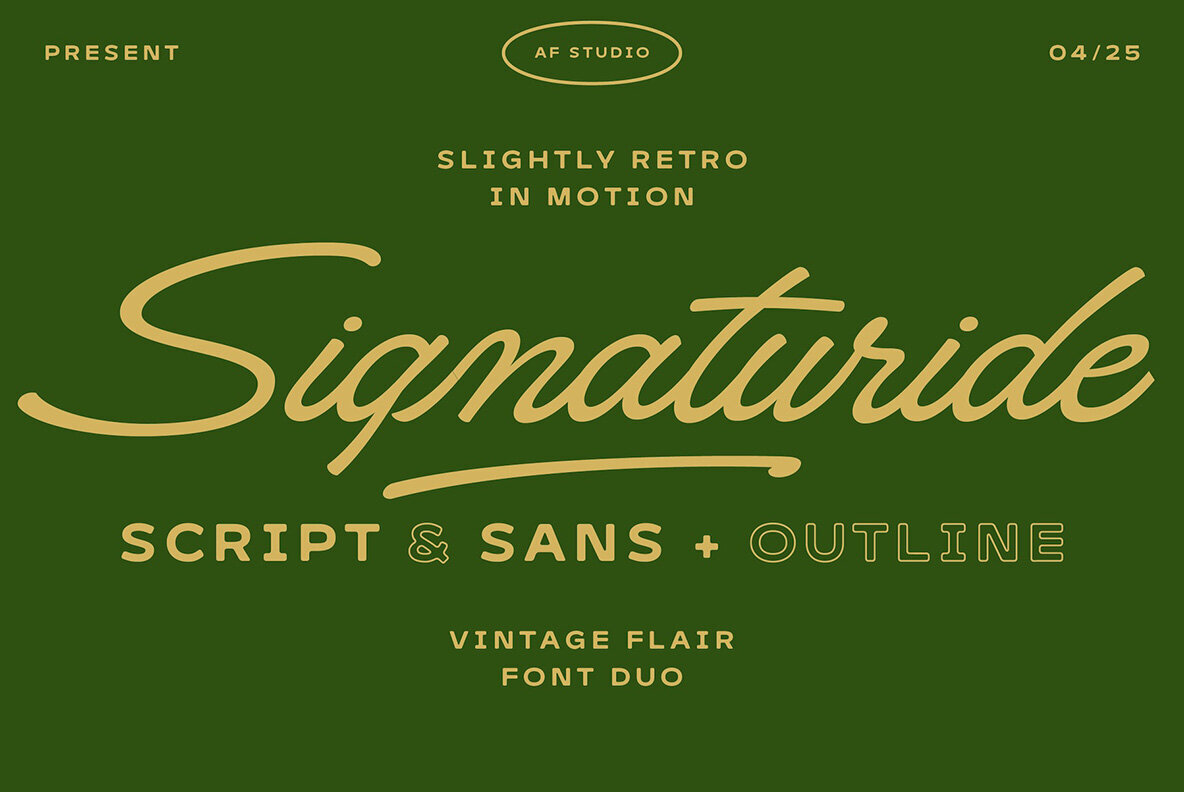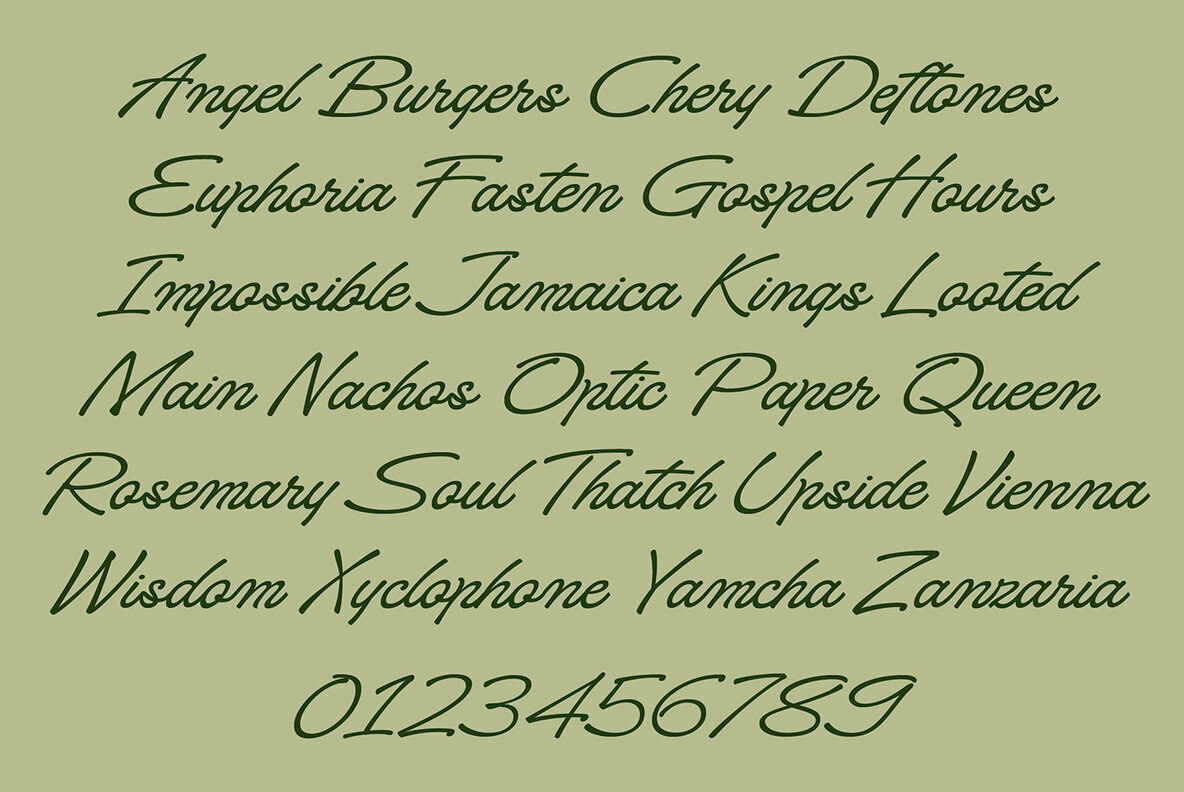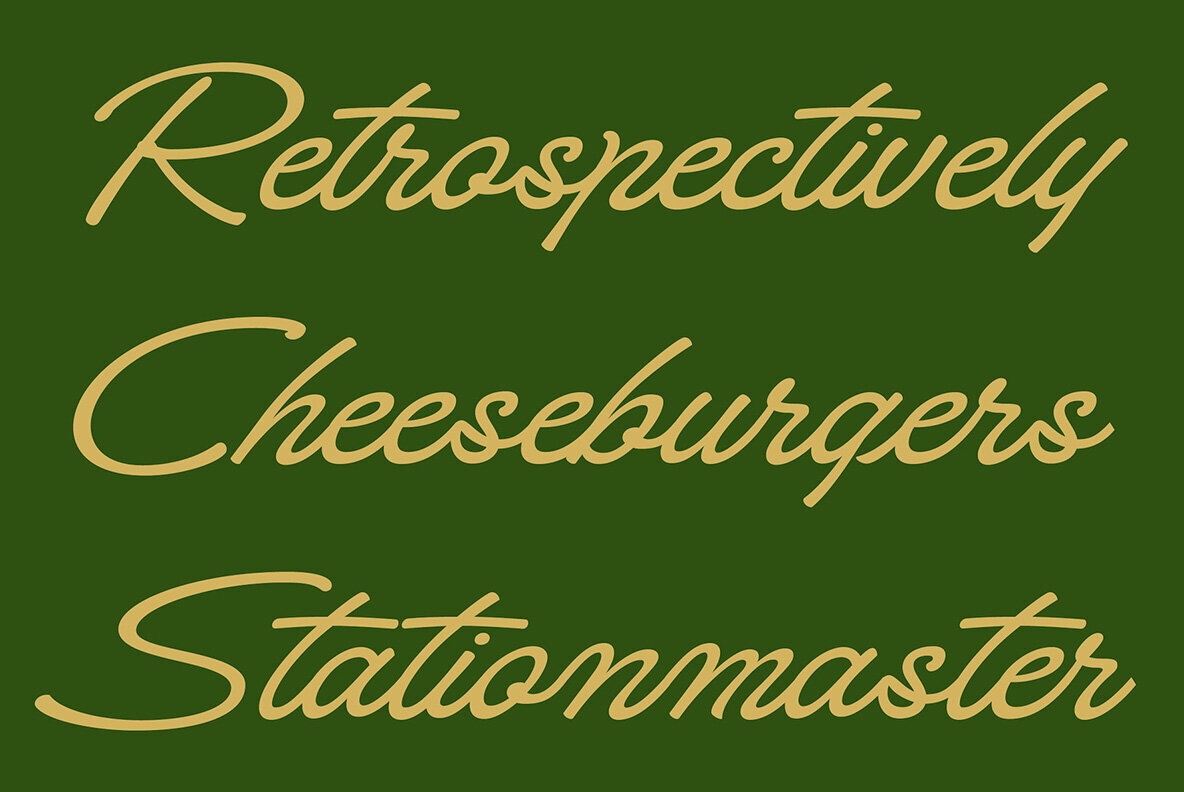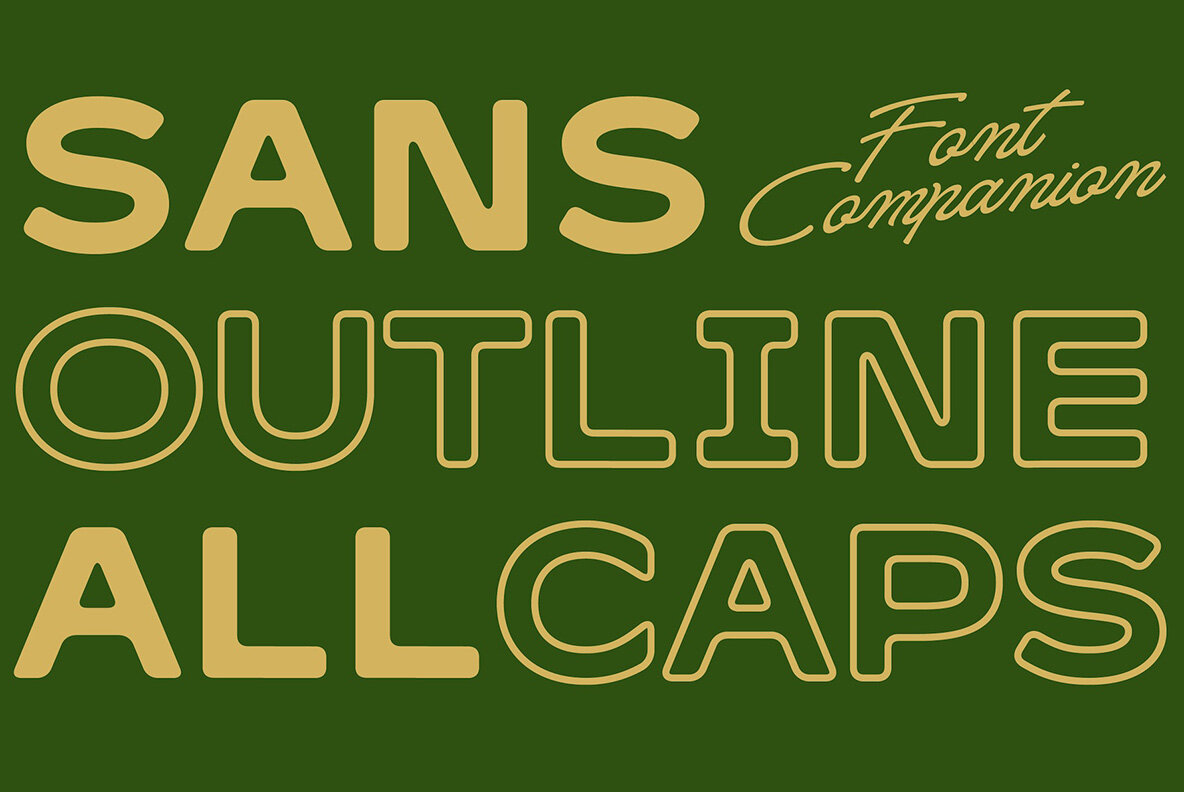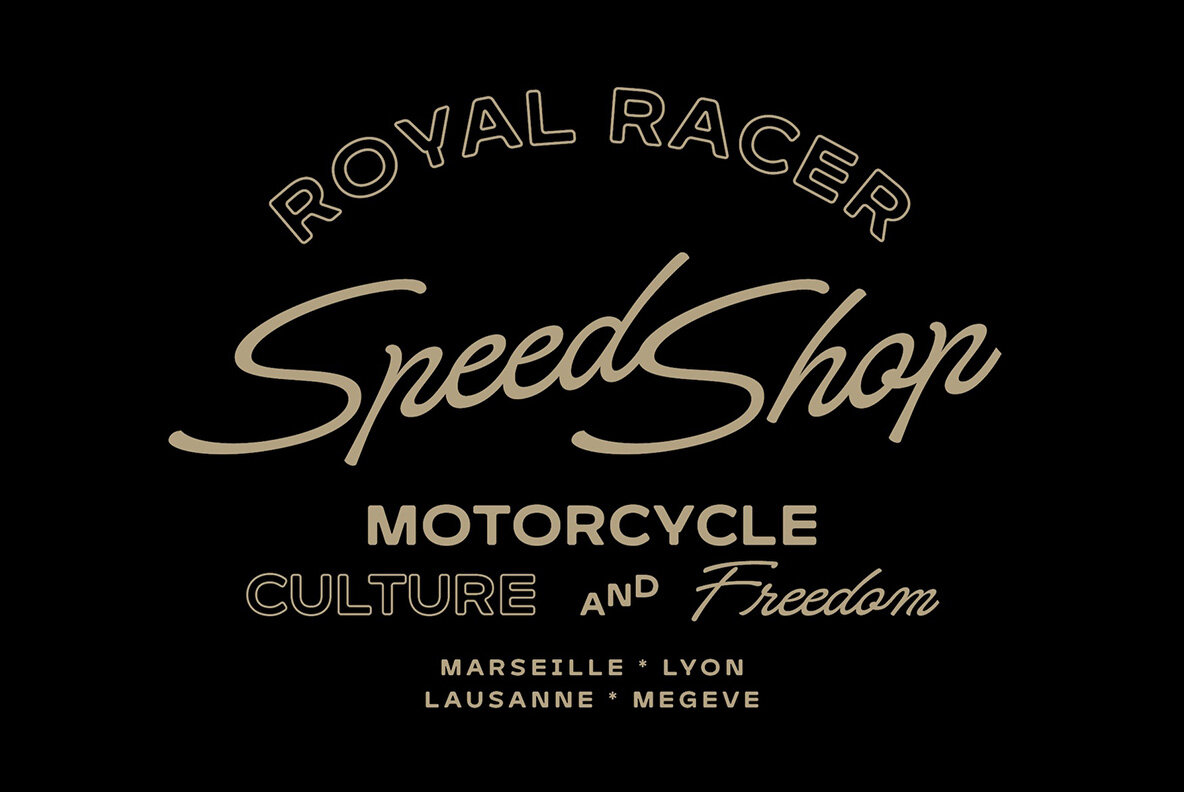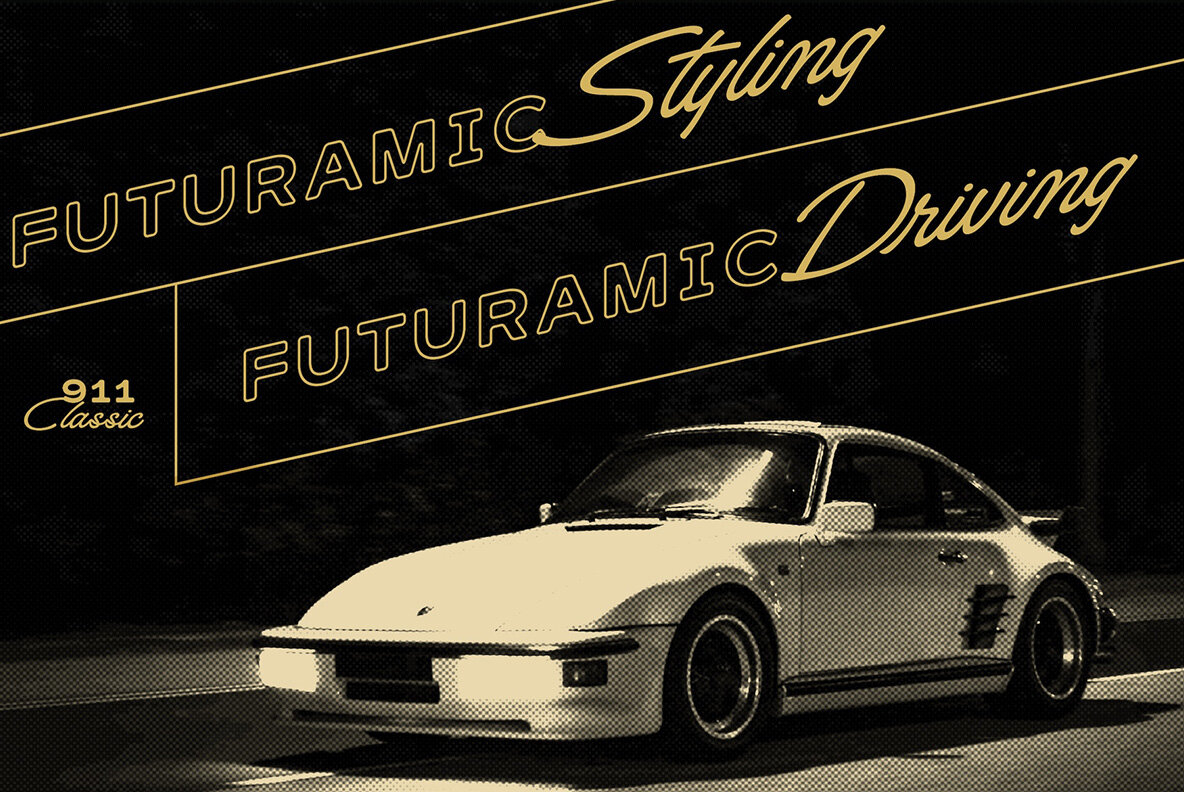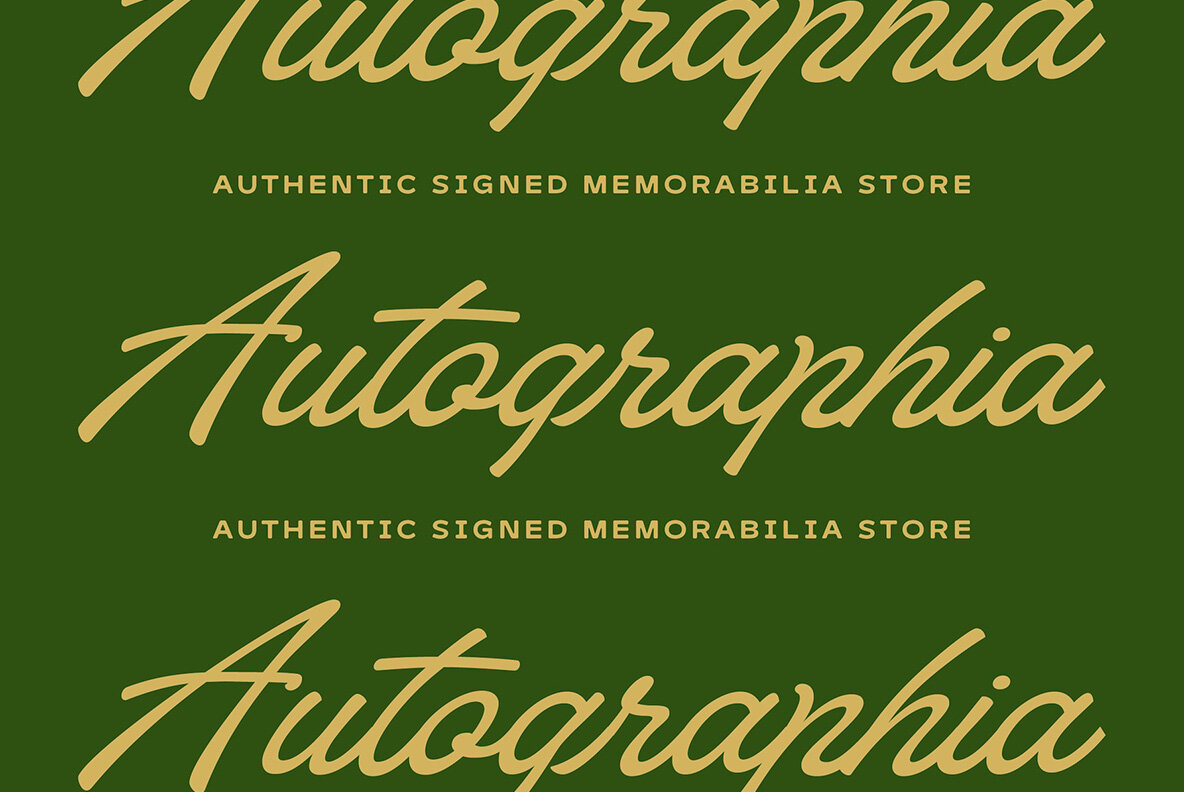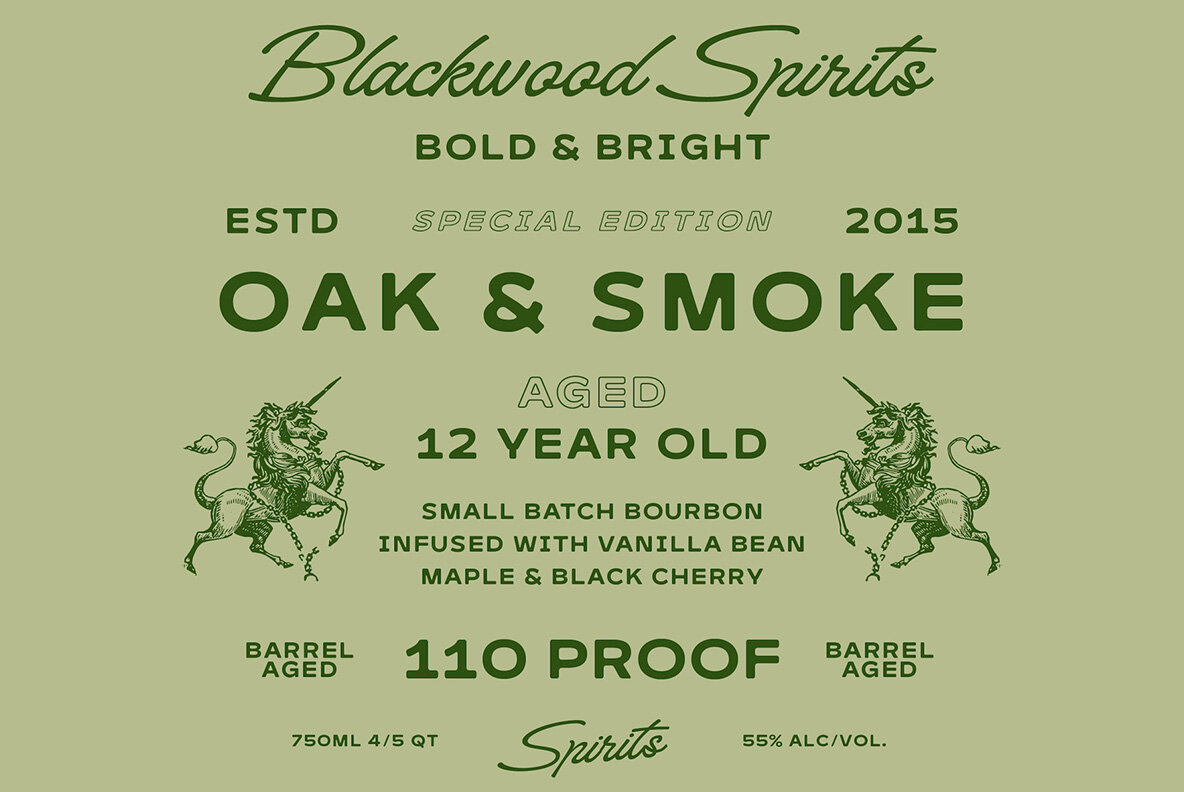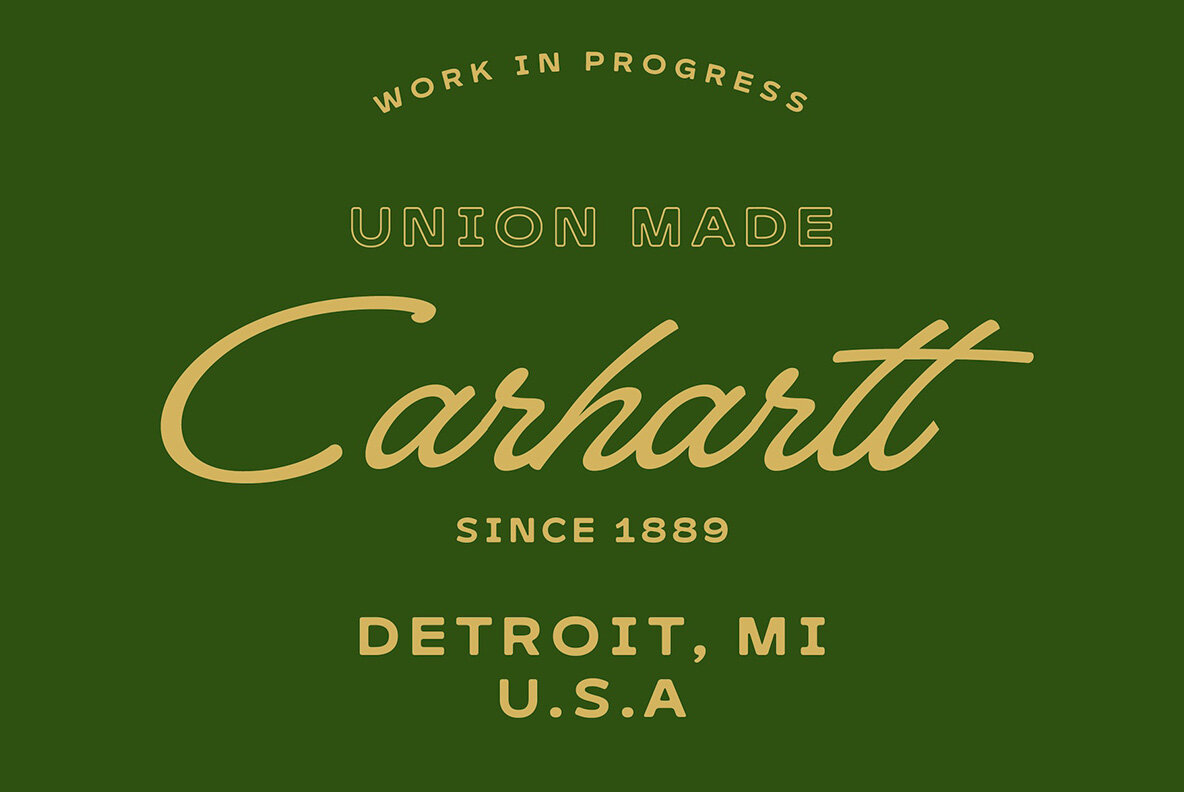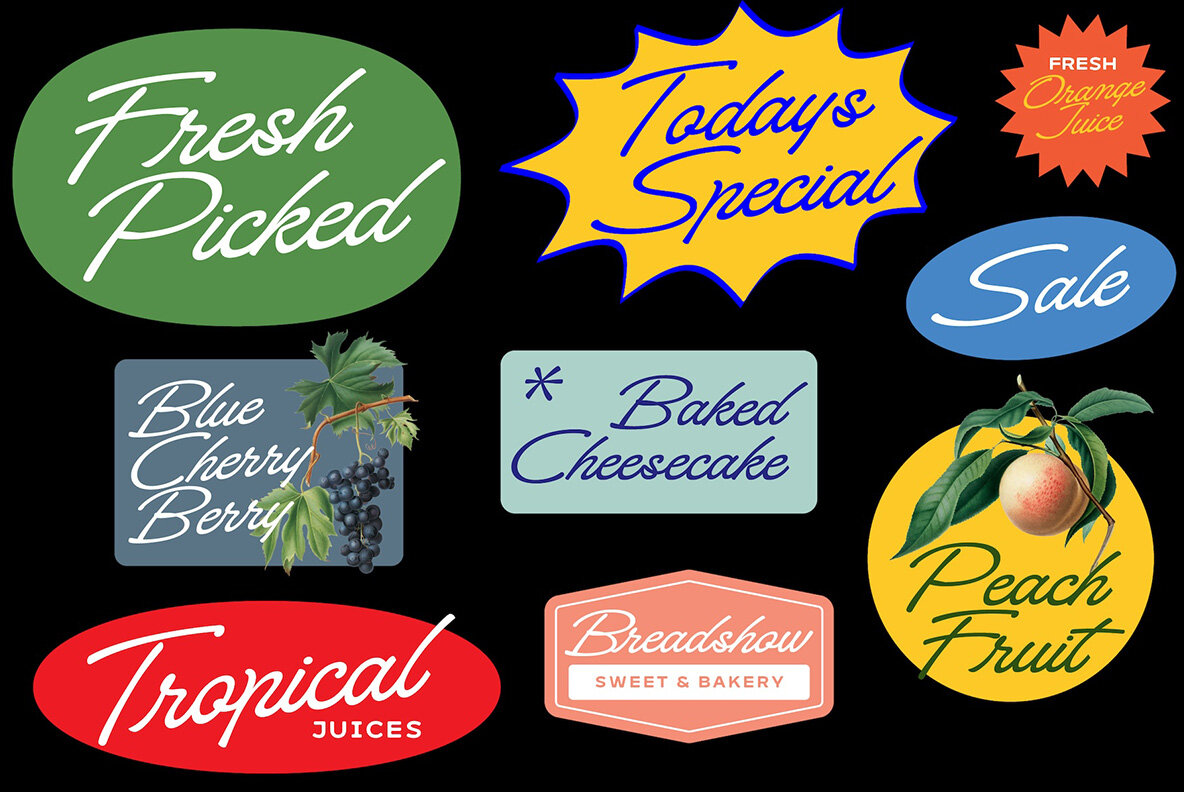
Signaturide Font
Signaturide Sans
Signaturide Sans Outline
Signaturide Script
Signaturide is a versatile vintage-inspired font duo that marries retro charm with modern functionality. It features a dynamic pairing of script and sans-serif styles, capturing the expressive motion of mid-century design while offering contemporary usability for branding, editorial, and packaging projects. Let Signaturide steer your typography in a new direction, combining bold structure with elegant curves to advance your designs with confidence and flair.Signaturide: A Vintage-Inspired Typeface Duo